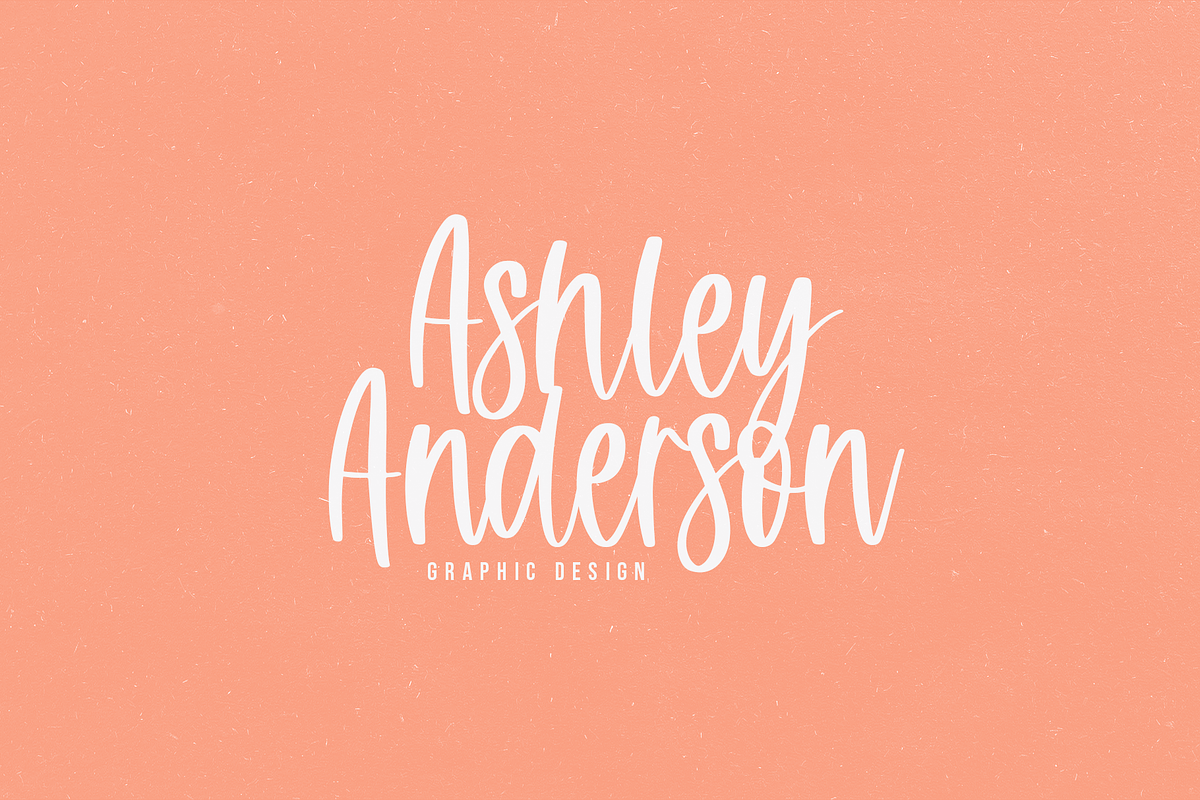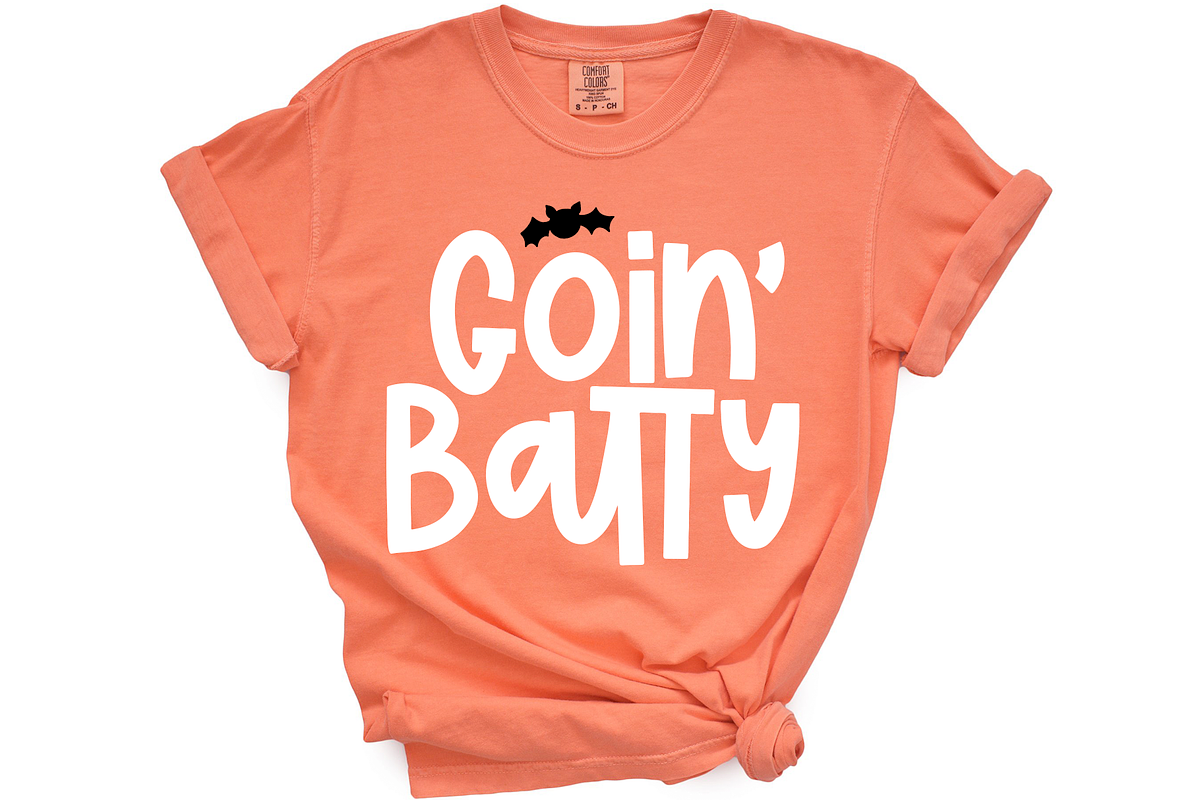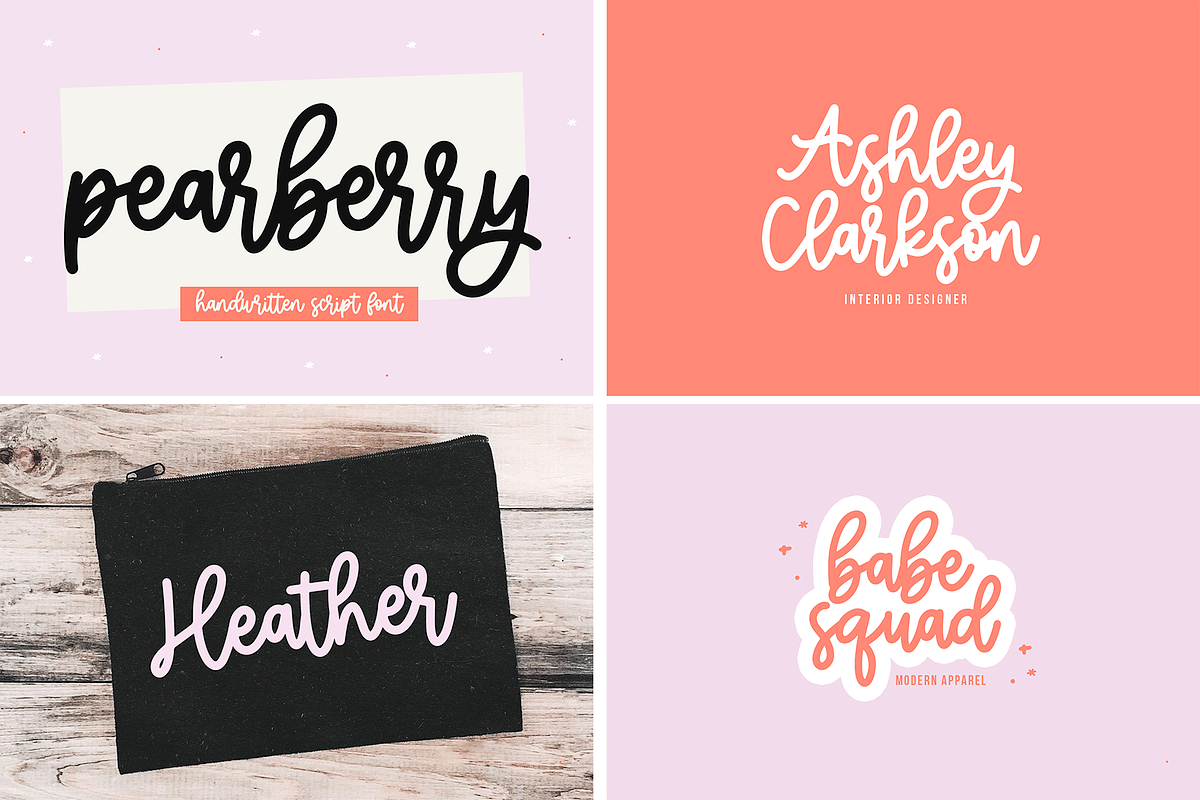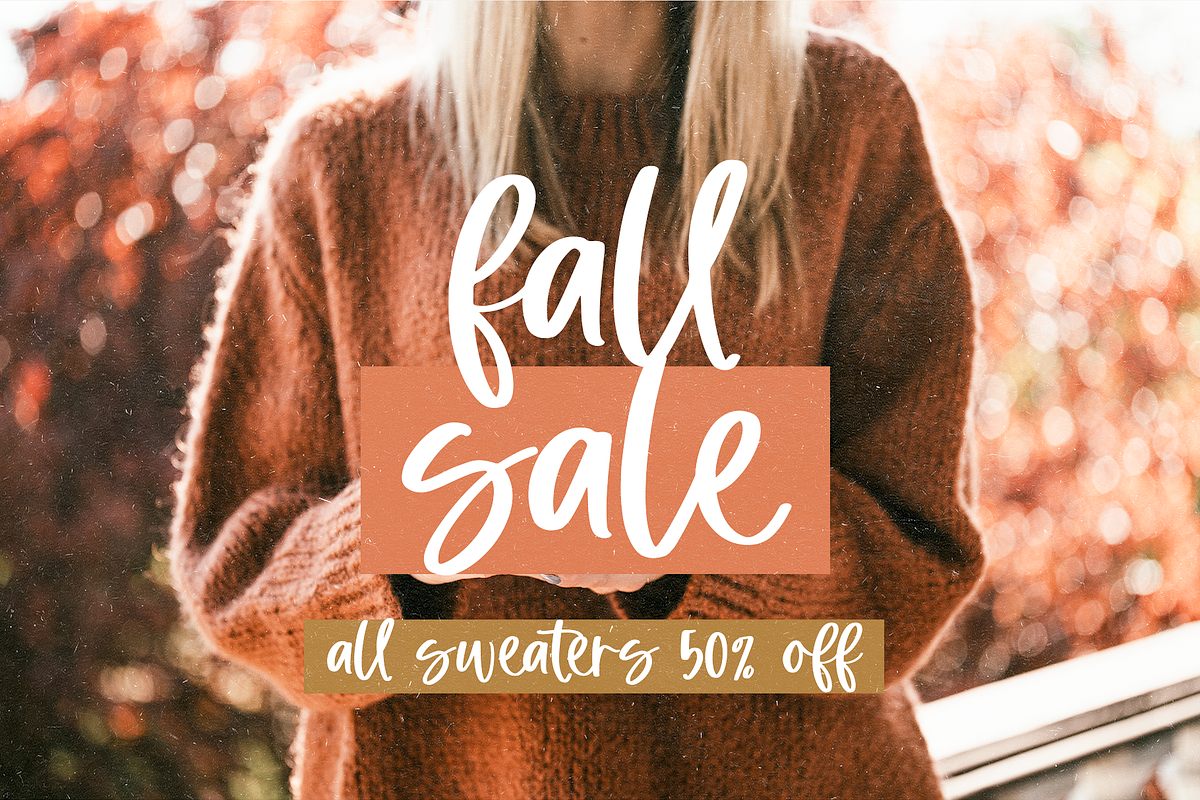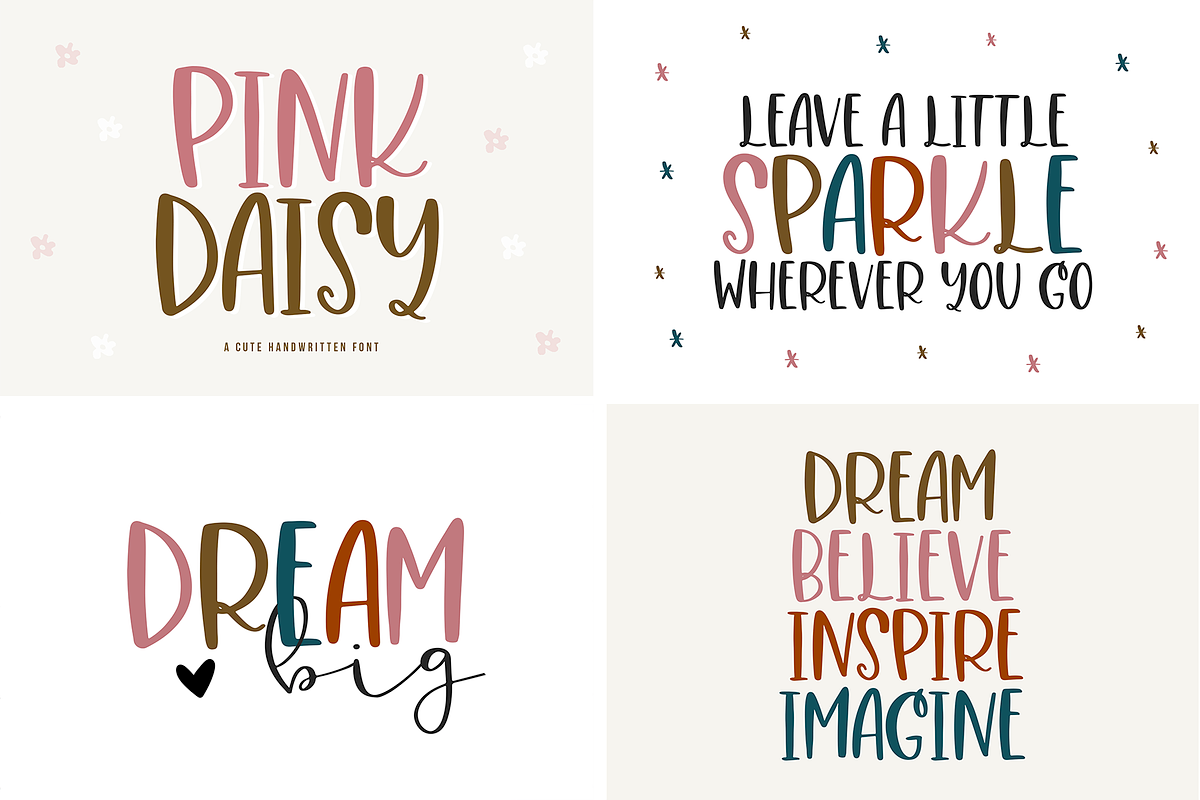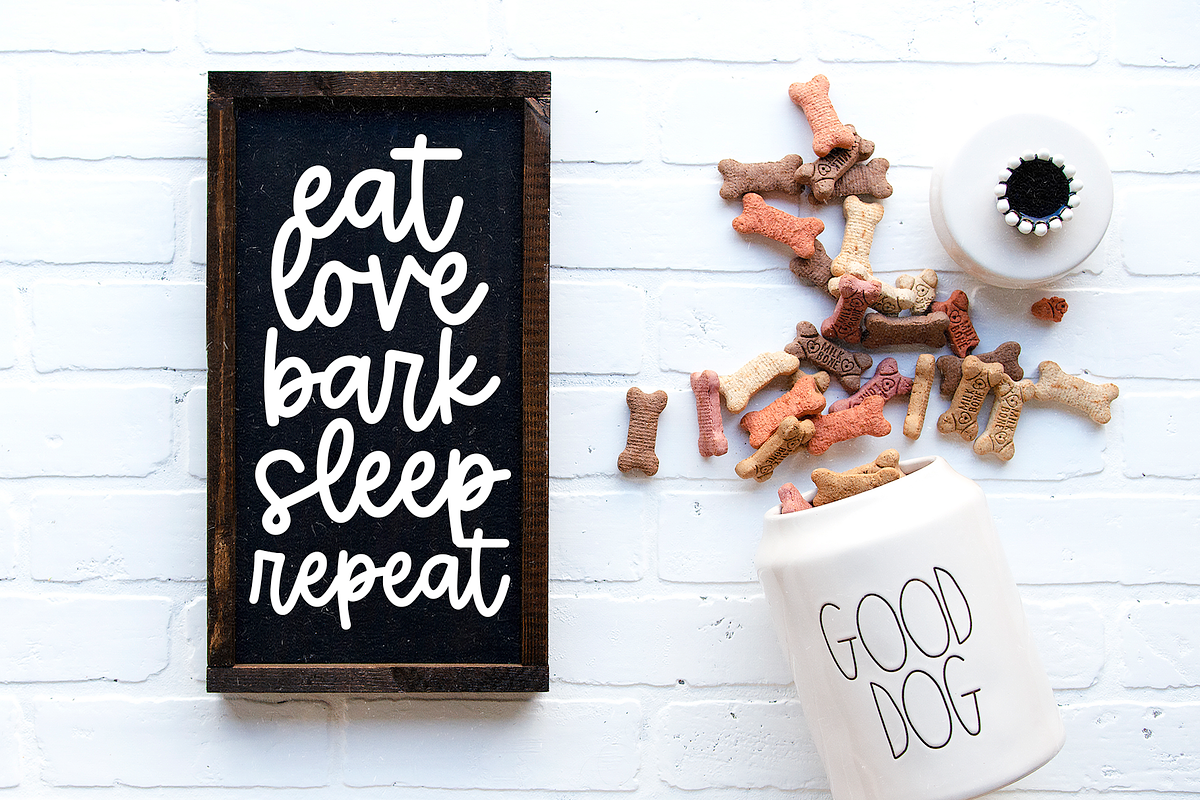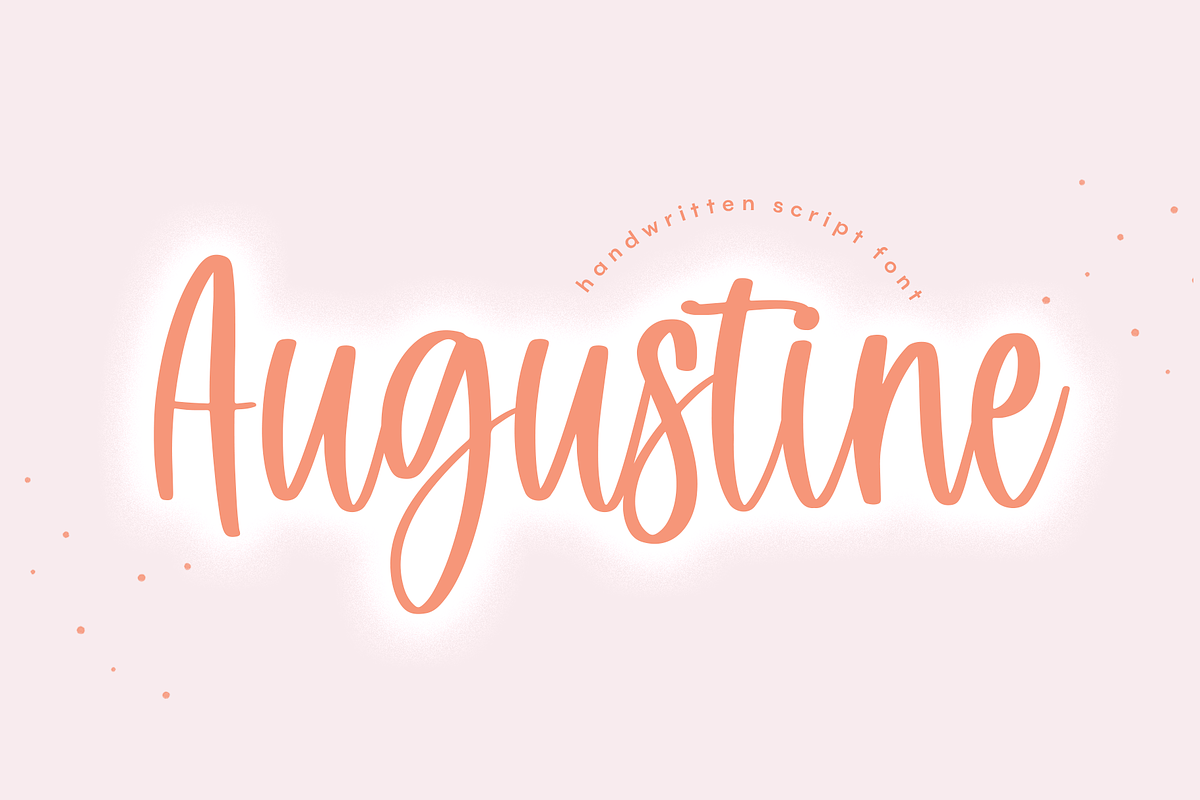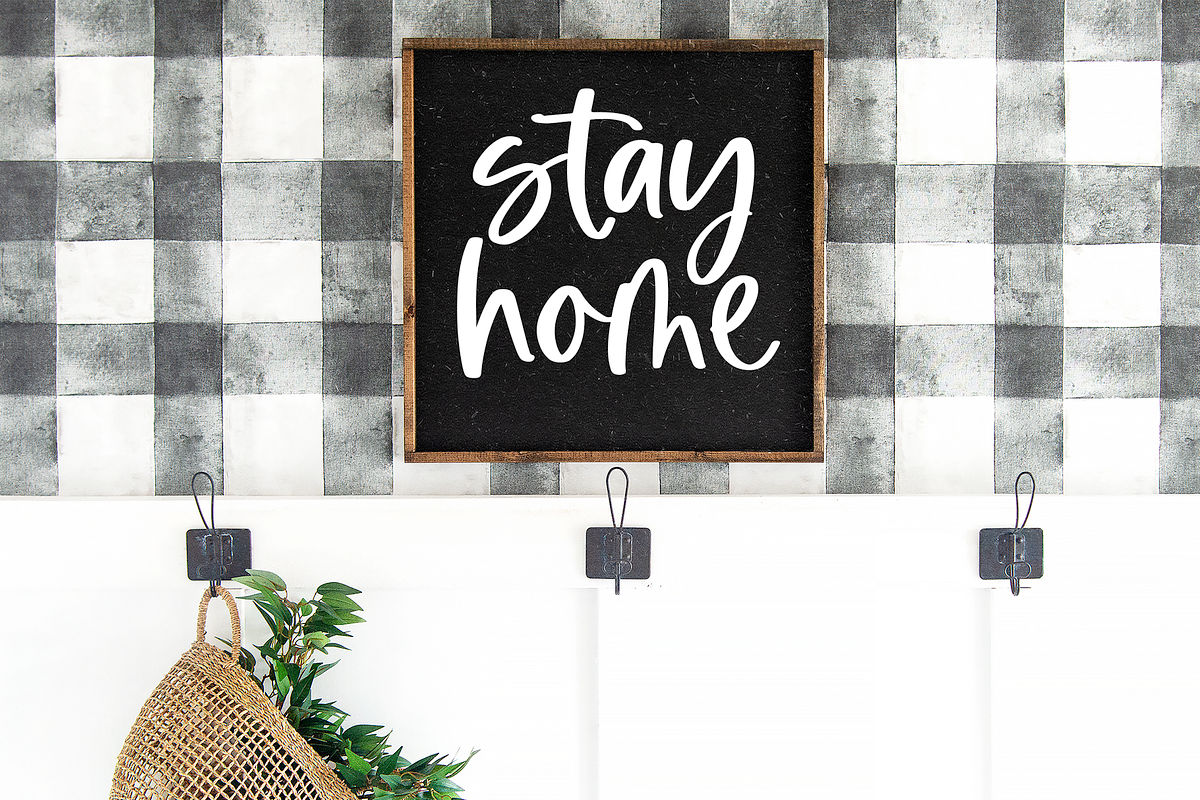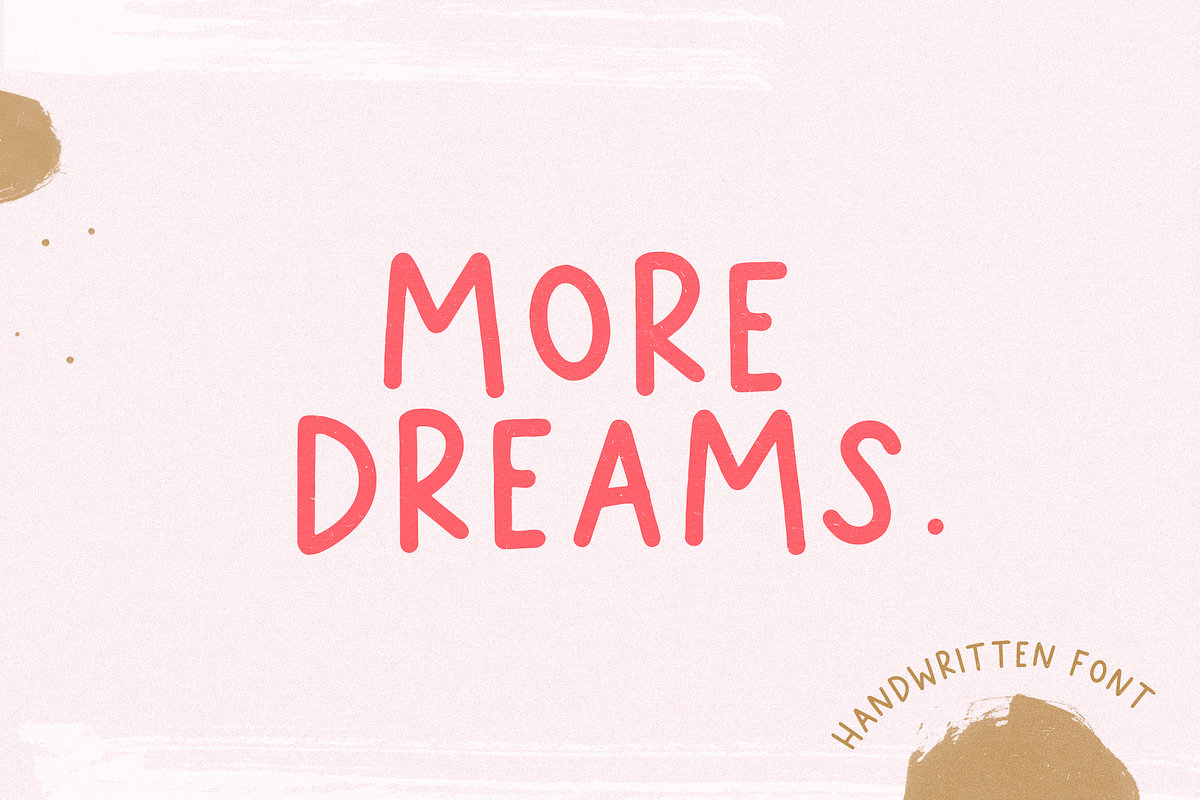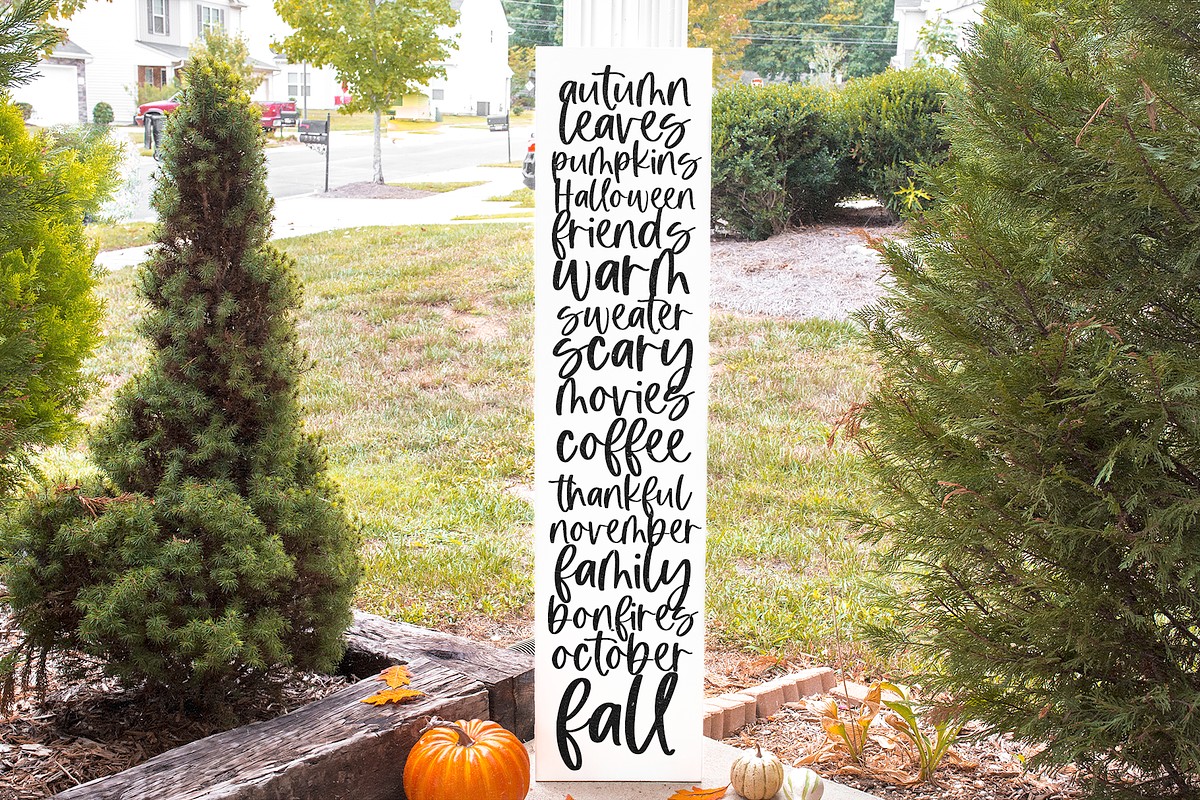
Font Bundle - Almost Autumn
HANDWRITTEN FONT BUNDLE These fonts are a perfect start for all of your fall/autumn crafting! Includes 6 brand new fonts.
This bundle includes a handpicked selection of fonts!
Fonts Included:
- September
- October
- Hello Sunday
- Pumpkin Harvest
- Augustine
- More Dreams
- Pearberry
- Moonlight
- Fireside
- Pink Daisy